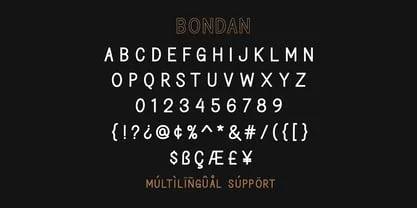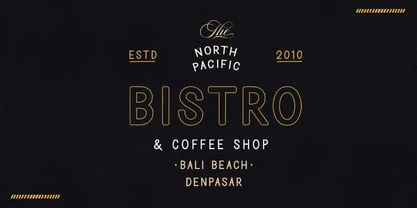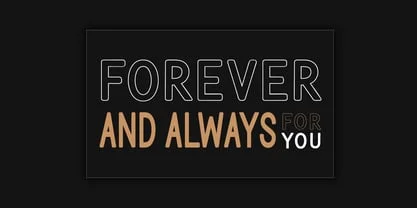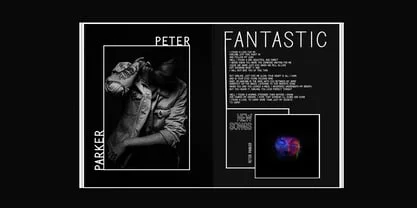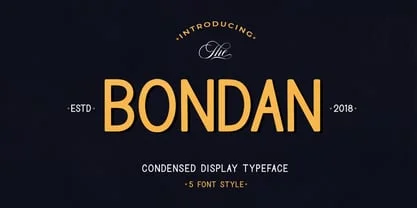
Bondan Regular Font
Typography shapes perception at a subconscious level. Bondan Regular leverages controlled contrast that rewards close inspection to make every composition feel considered. The typeface brings a versatile sensibility to a broad range of creative disciplines, with visual harmony and precise spacing that holds up whether the work is print-first or screen-first.
In practice, Bondan Regular proves particularly effective for annual reports, environmental graphics, signage systems, poster creation, packaging design. Designers reaching for it find that the type decisions feel resolved rather than laboured — a useful quality when client timelines are tight.
The range of applications extends to brand identity systems, logo design, social media graphics, advertising campaigns. That breadth is deliberate: the proportions and spacing were stress-tested across a wide range of mock briefs before the typeface was finalised.
Pairing Bondan Regular with a contrasting serif or a neutral grotesque gives mixed-format layouts a clear visual grammar without requiring constant size adjustments to establish hierarchy.
Graphic designers working on identity systems find Bondan Regular a reliable choice for projects that demand both personality and restraint. The design avoids the self-conscious quirkiness that dates quickly, settling instead for considered distinctiveness that holds up over time.